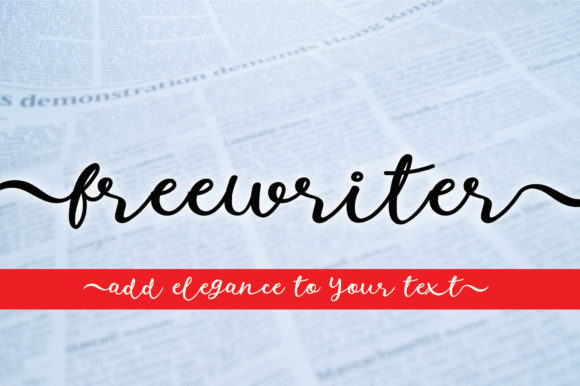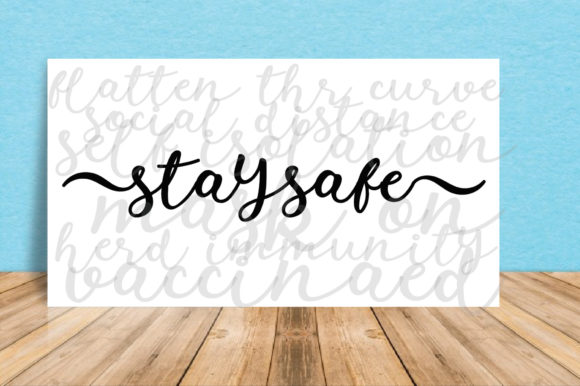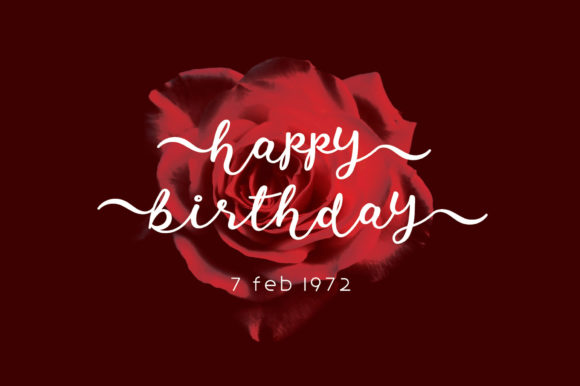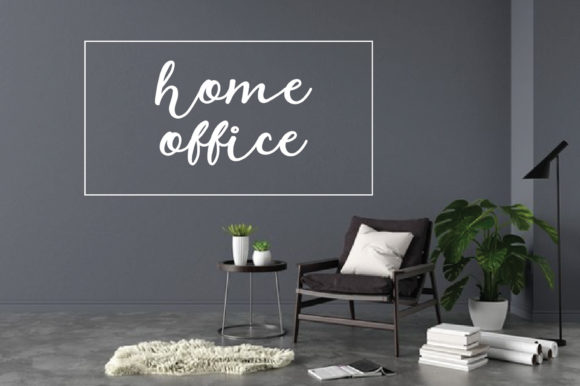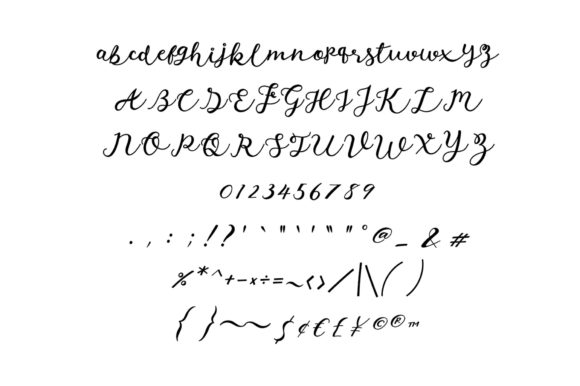
Freewriter Font
About Freewriter Font
Freewriter is a romantic and sweet calligraphy typeface with characters that dance along the baseline. It will add a luxury spark to any design project that you wish to create!